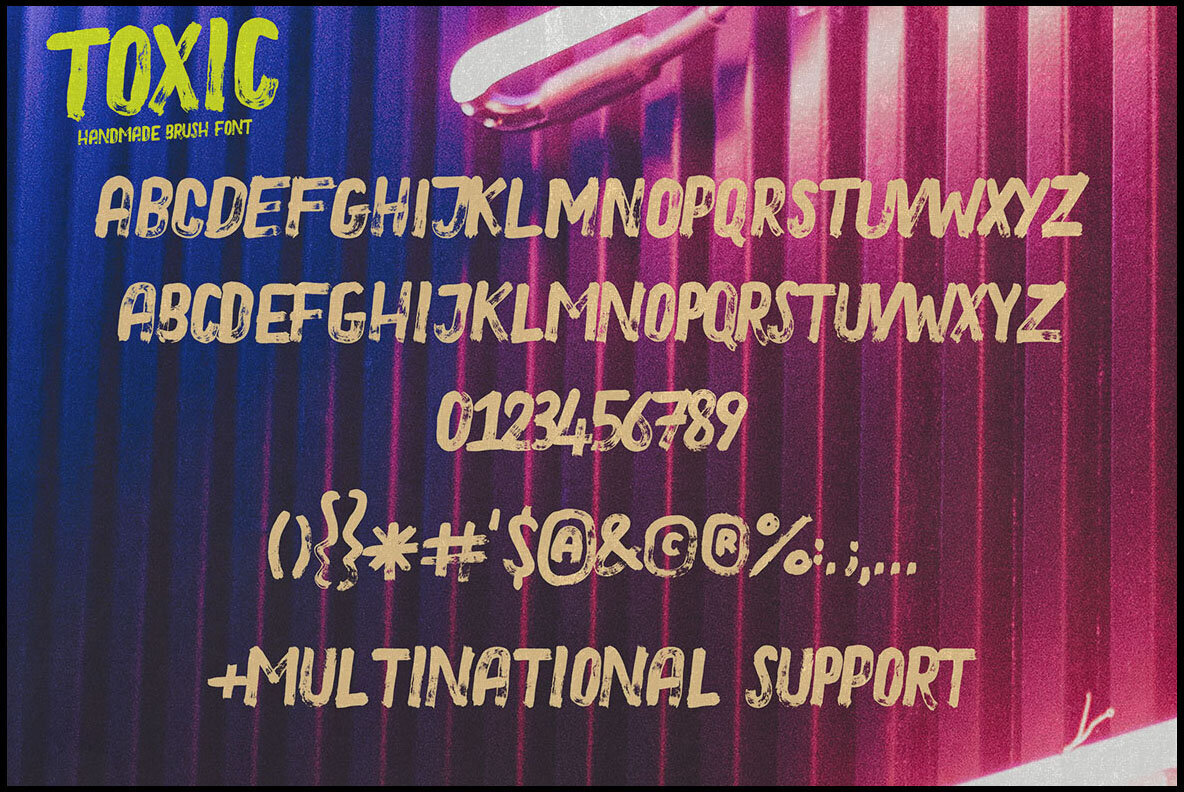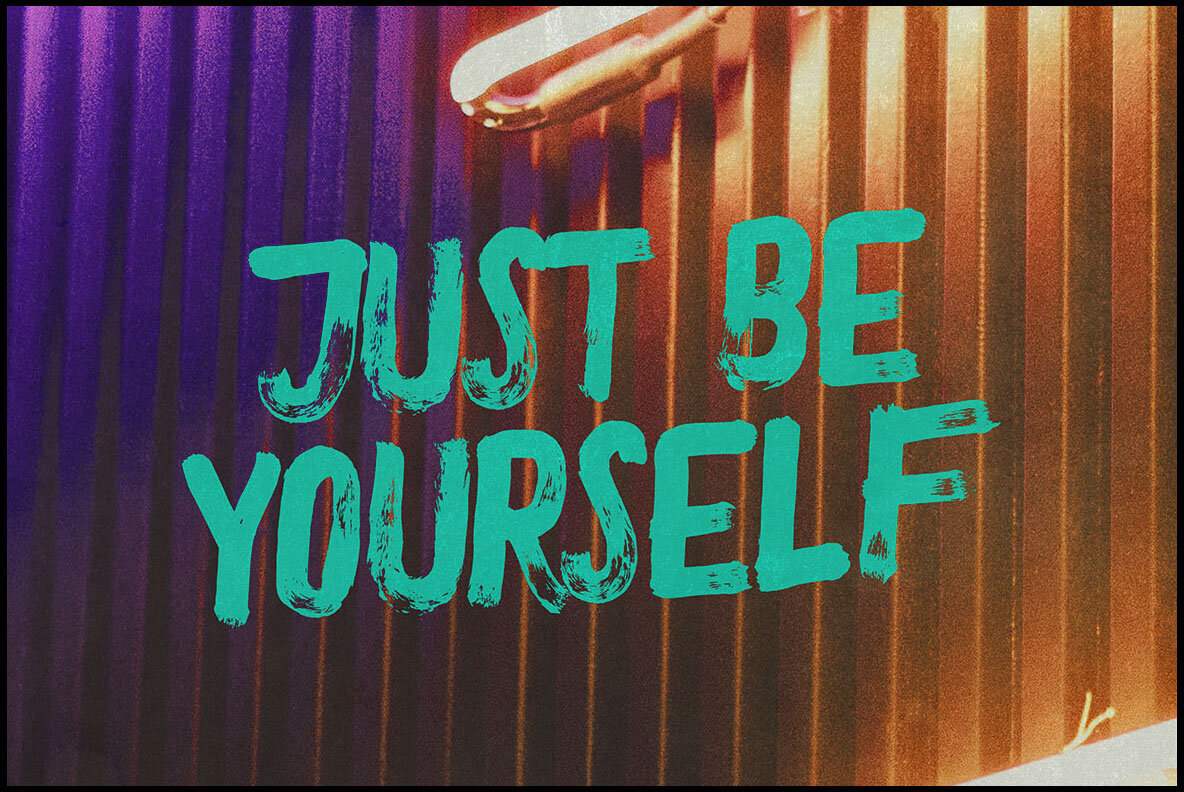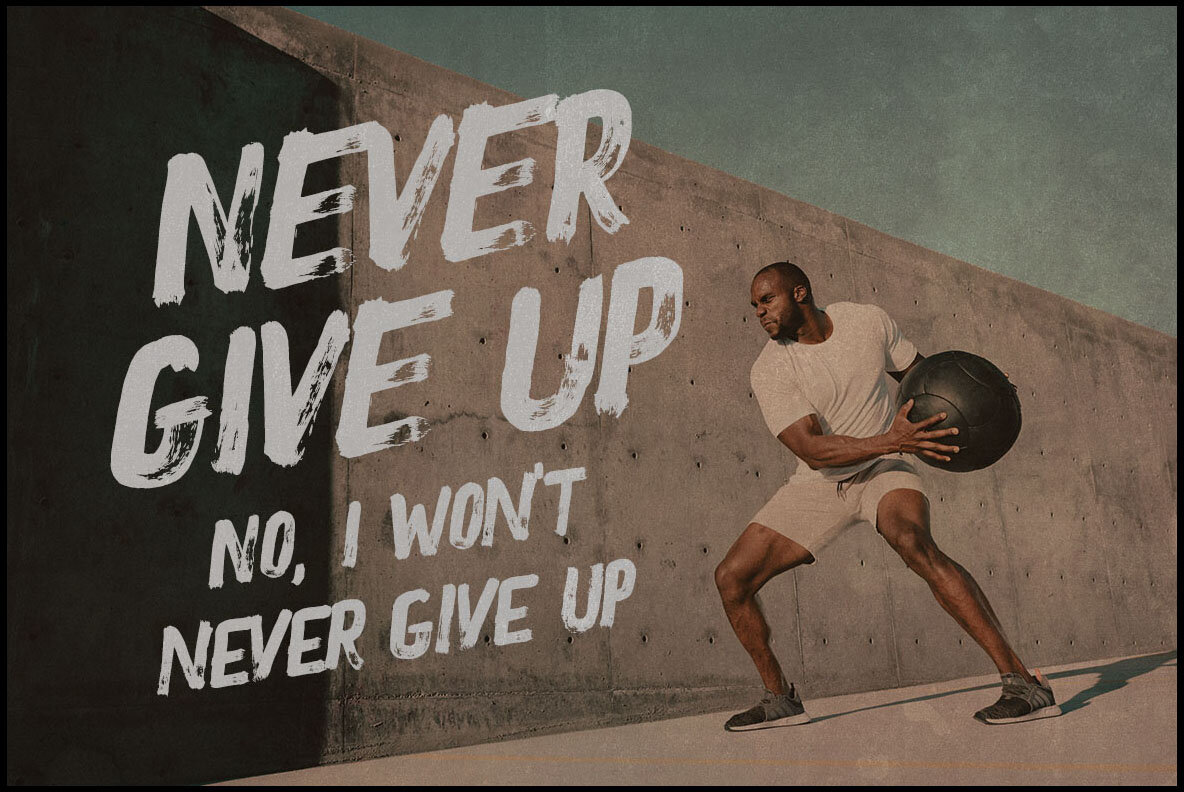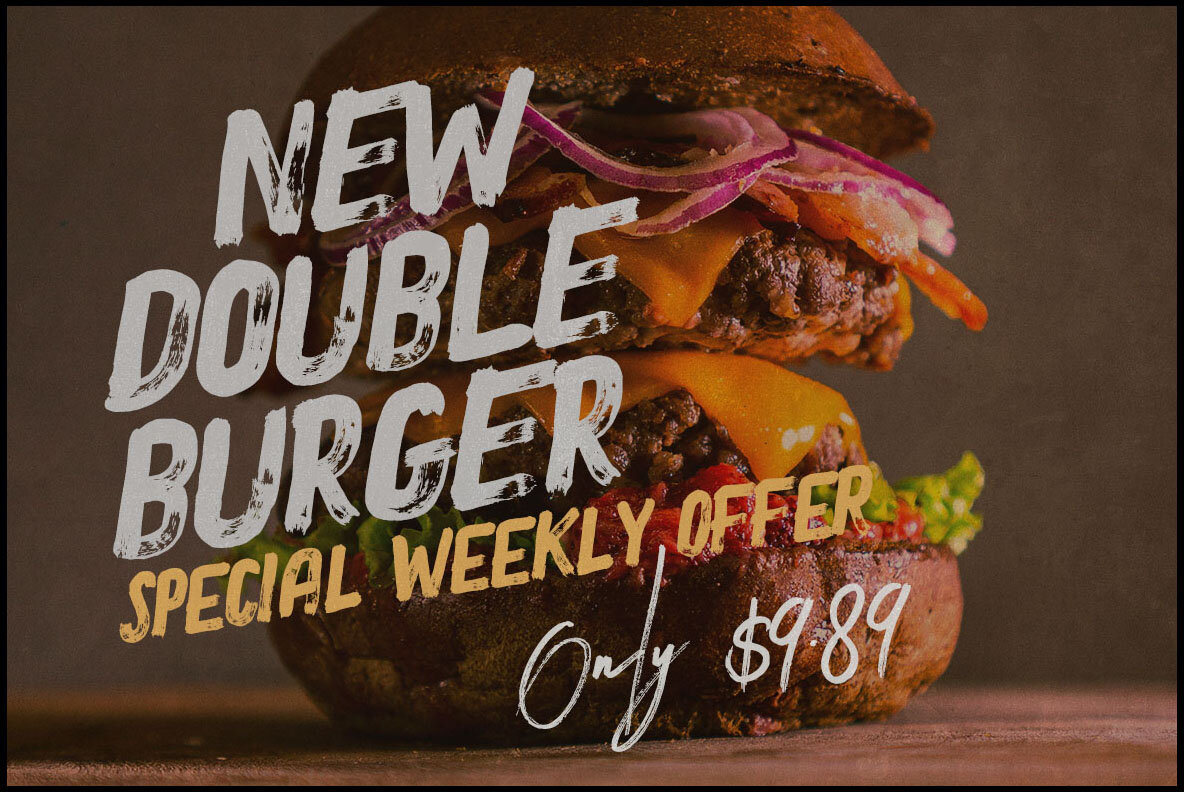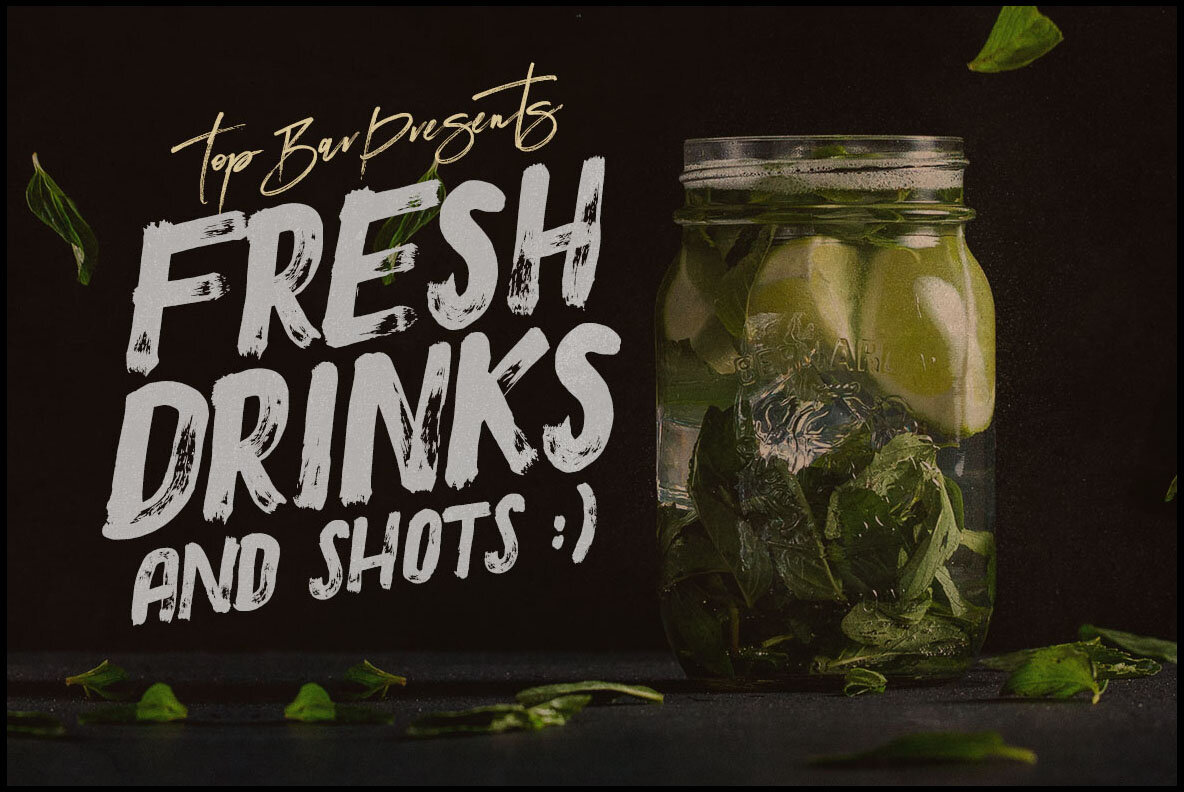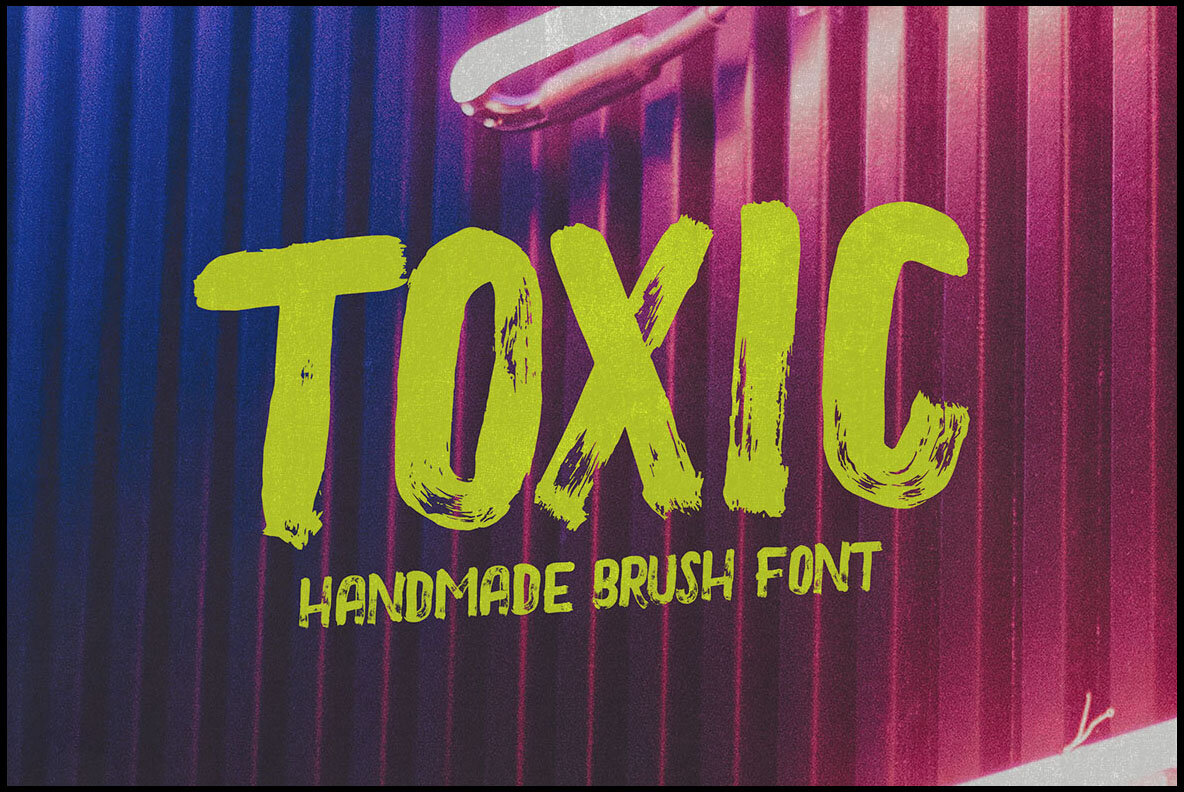
Toxic Font
TOXIC Regular
Toxic by Peter Olexa is a bold brush and grunge-style sans display font, perfect for adding a unique flair to your artistic and grunge-inspired projects. Its distinctive design makes it an excellent choice for creative expressions that demand attention.Toxic: Bold Brush Grunge Sans Display Font